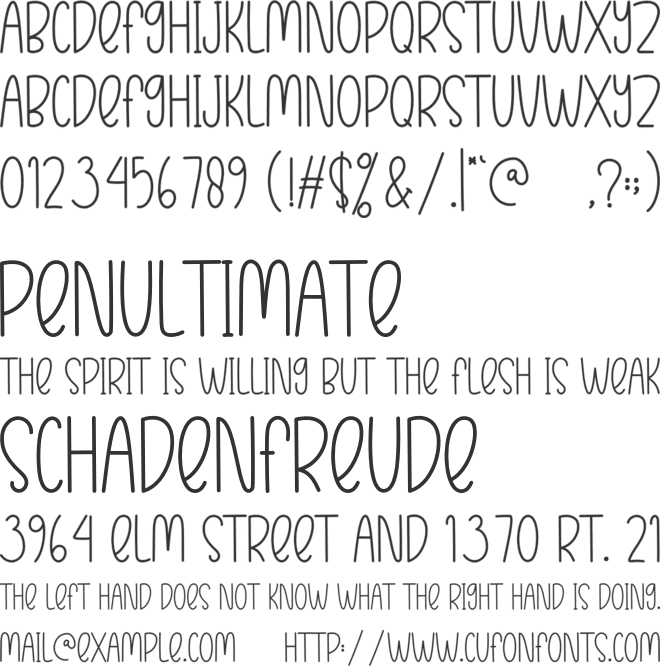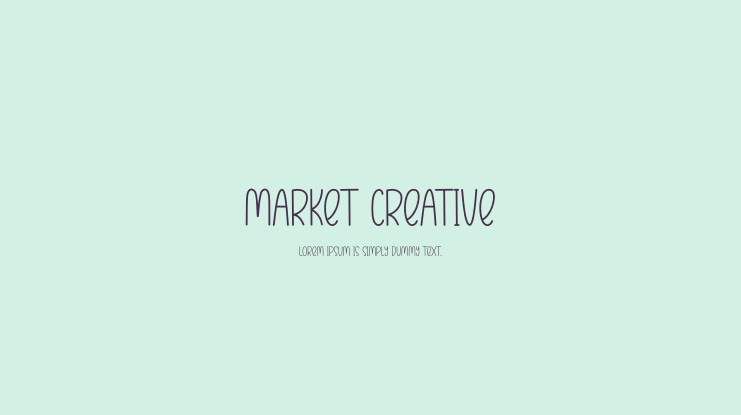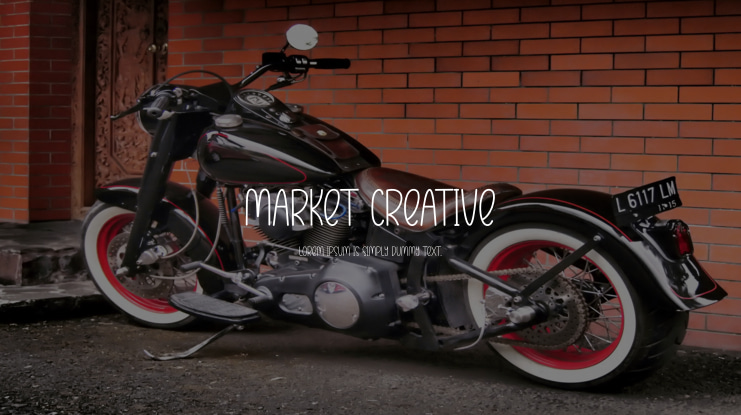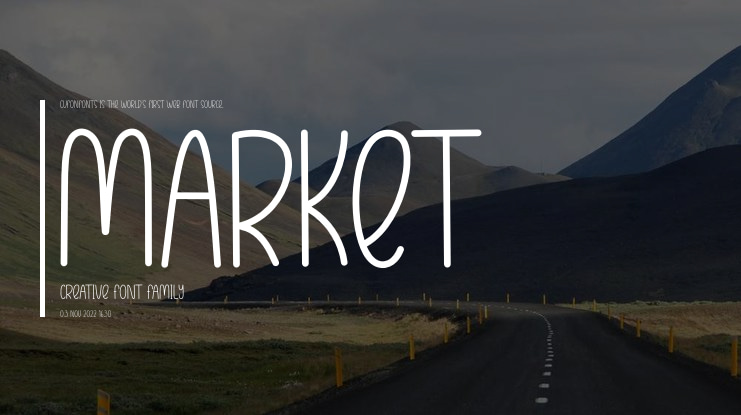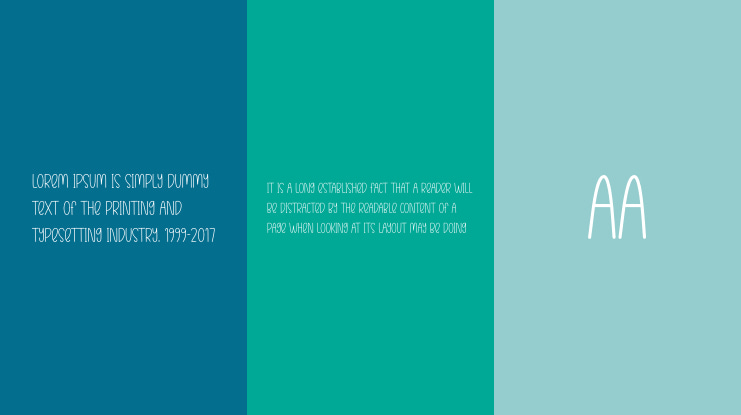
Our latest stylish fonts are ideal for showcasing on walls, wedding invitations, social media posts, logos, advertisements, product packaging, designs, labels, photography, watermarks, invitations, stationery, and any project that requires elegant handwriting.